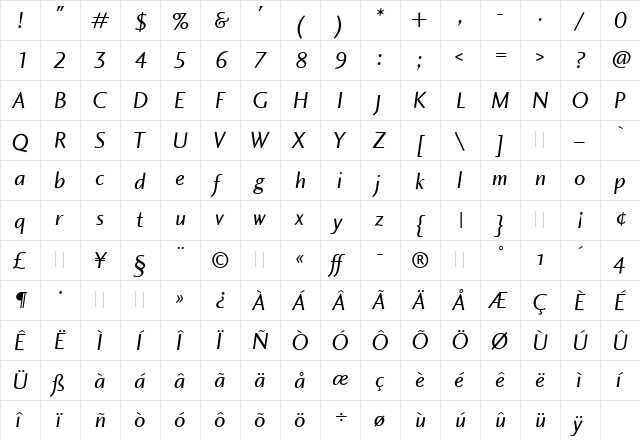
Charlotte Sans Book Italic Regular
Design Context for Charlotte Sans Book Italic Typeface
Charlotte Sans Book Italic takes a measured approach to typography — its balanced proportions and neutral character make it a reliable workhorse for both digital and print work. The dynamic lean of this cut emphasises speed and emphasis in any layout.
Pro Tip: Use Charlotte Sans Book Italic for emphasis, pull quotes, and subheadings where its slanted energy can add rhythm to the layout.